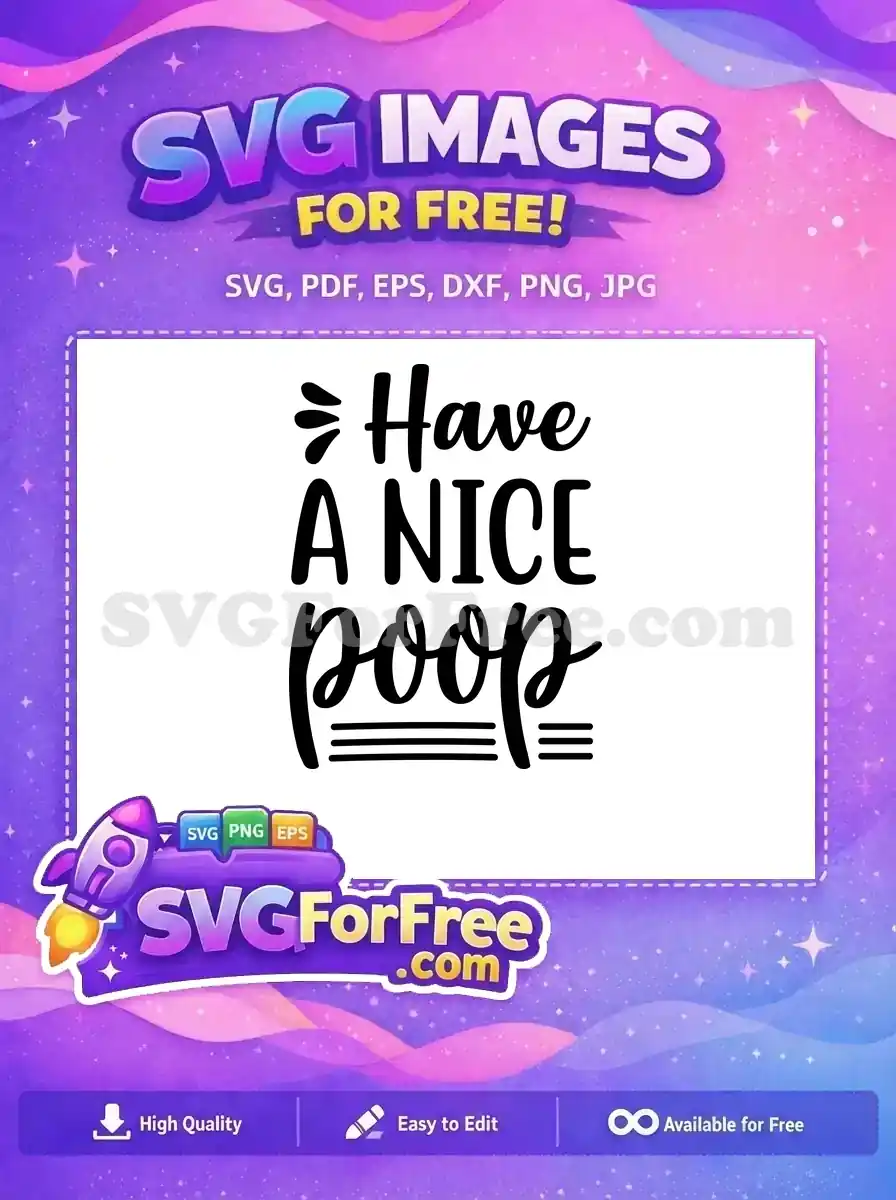
Grab this free, humorous ‘Have A NICE poop’ SVG design. Perfect for crafting funny bathroom decor and gifts, adding a lighthearted touch to any project. Download your free file today!